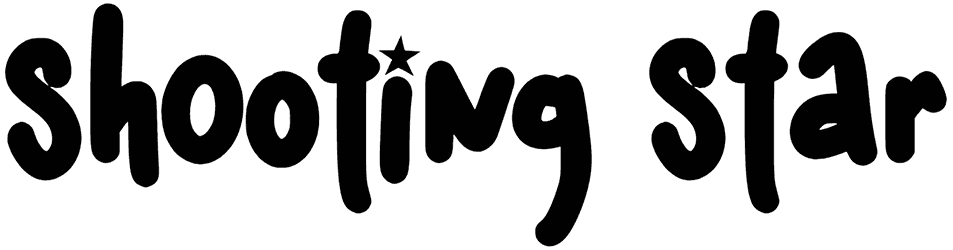
Shooting Star Font
A high-quality piece of art that brings a sweet, happy vibe to your projects is ready here. This star font with a handmade mark lends itself skillfully to friendly designs, movies, greeting cards, and any other kind of approachable work that’d benefit from a fun ambiance.